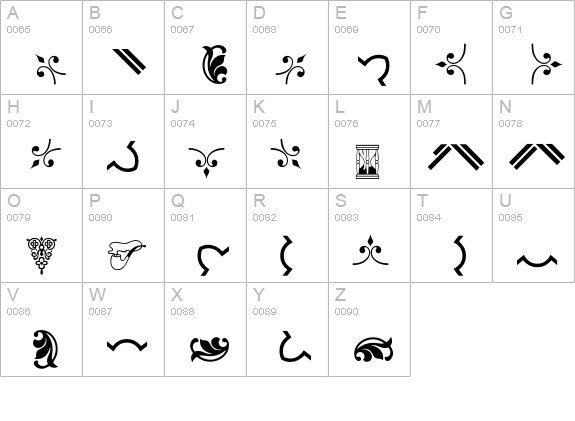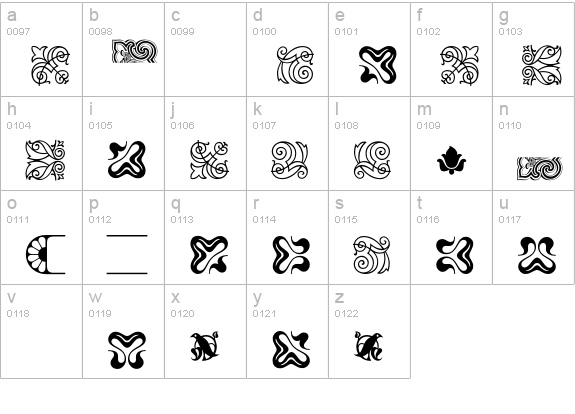
BordersOrnamentsP03 font is a versatile and intricate typeface designed to enhance your creative projects with a touch of elegance and sophistication. Featuring a collection of beautifully crafted borders and ornaments, this font is perfect for adding decorative elements to your designs. What makes BordersOrnamentsP03 font even more appealing is that it is available for free download at FontsMarket.com. With its unique and ornate characters, this font will surely make your work stand out and captivate your audience. Whether you are designing invitations, posters, or any other project that requires a touch of finesse, BordersOrnamentsP03 font is the perfect choice. Elevate your designs with this exquisite font and let your creativity shine.